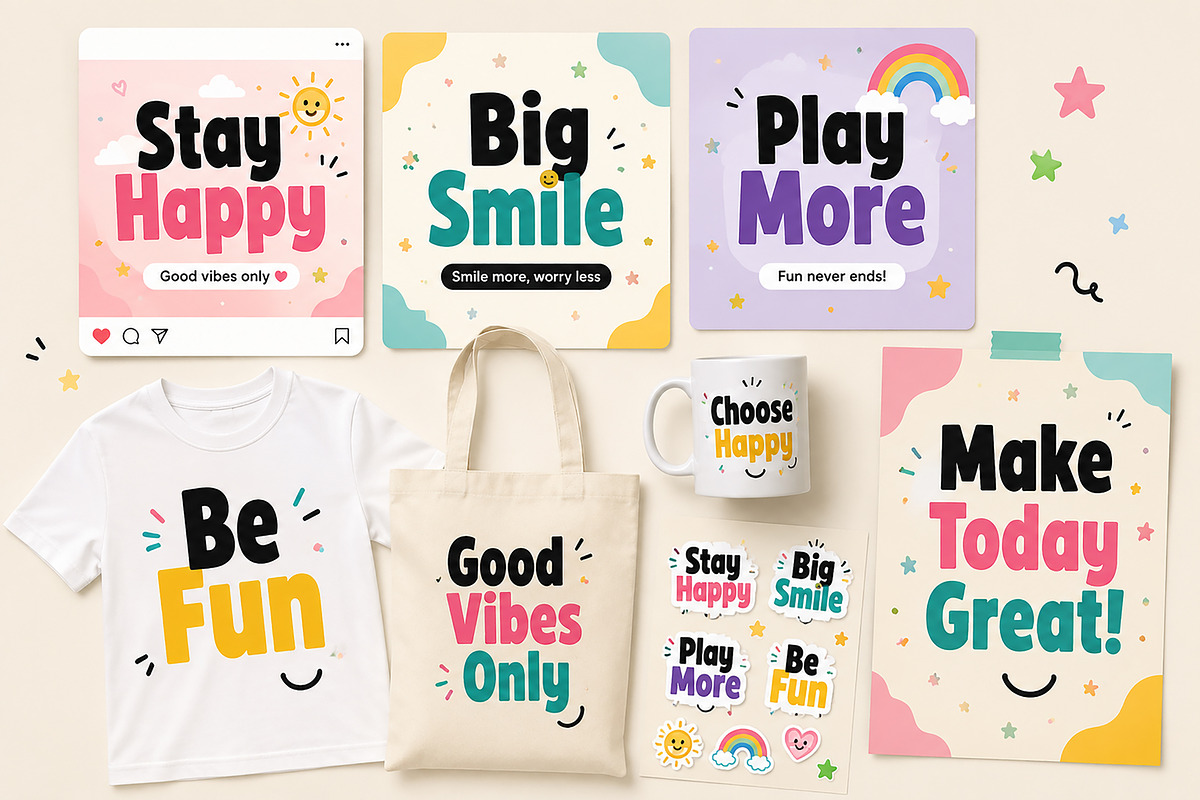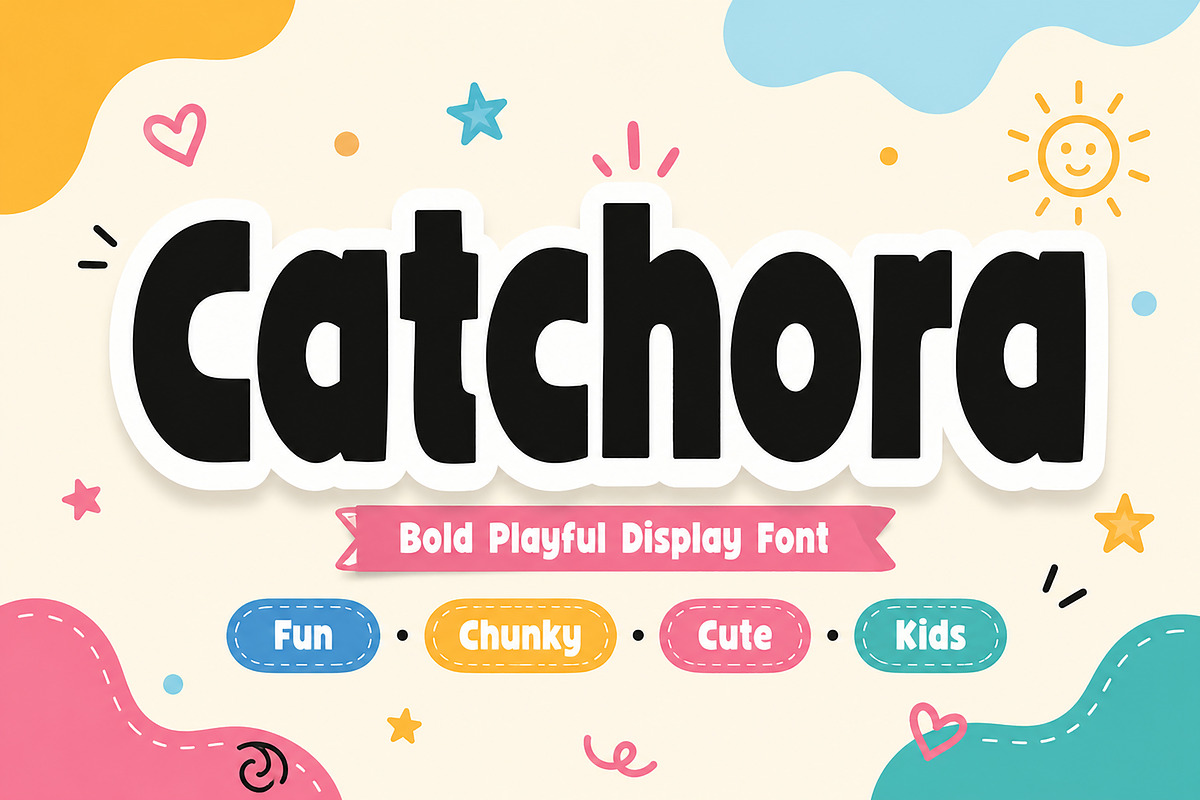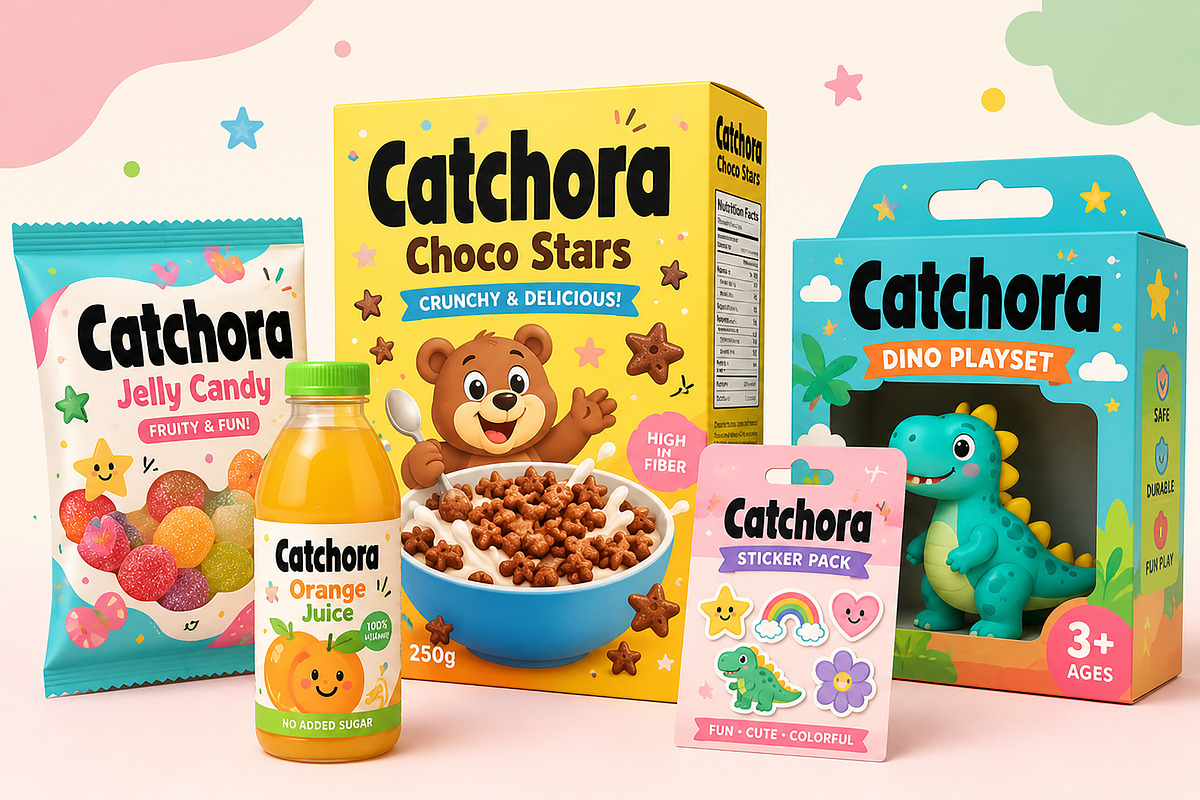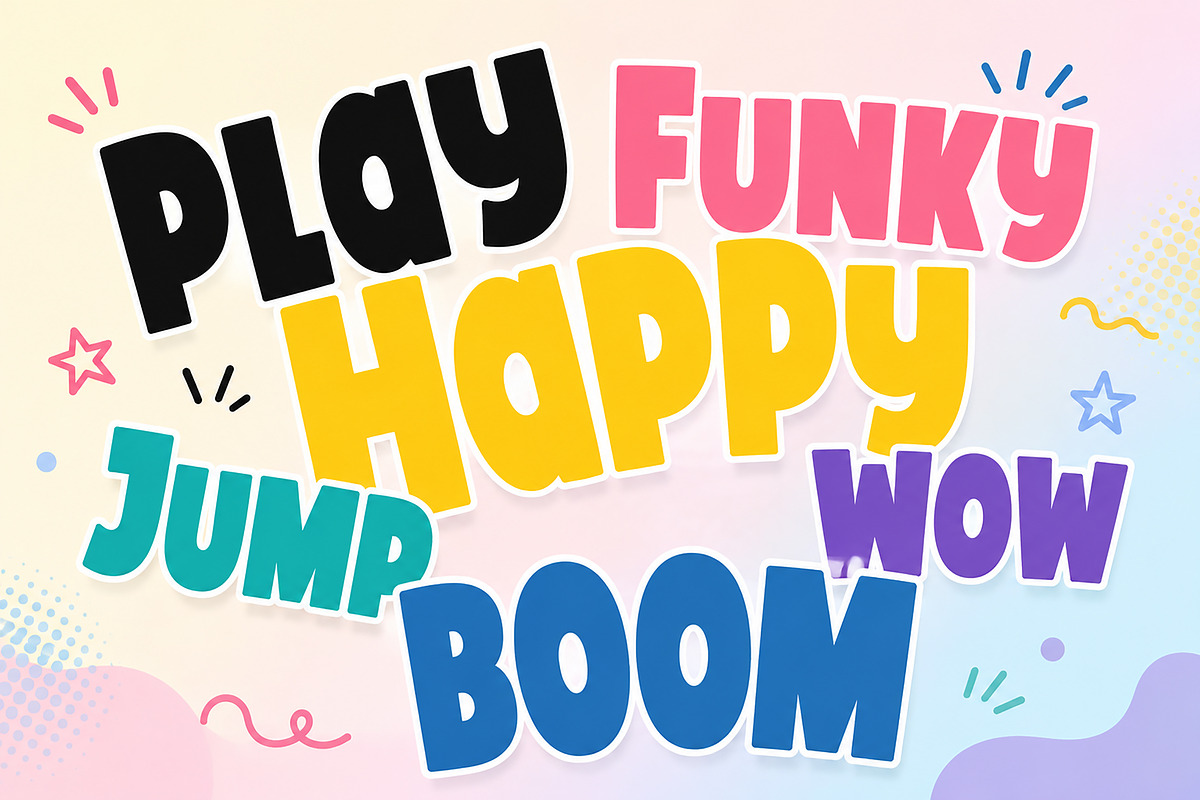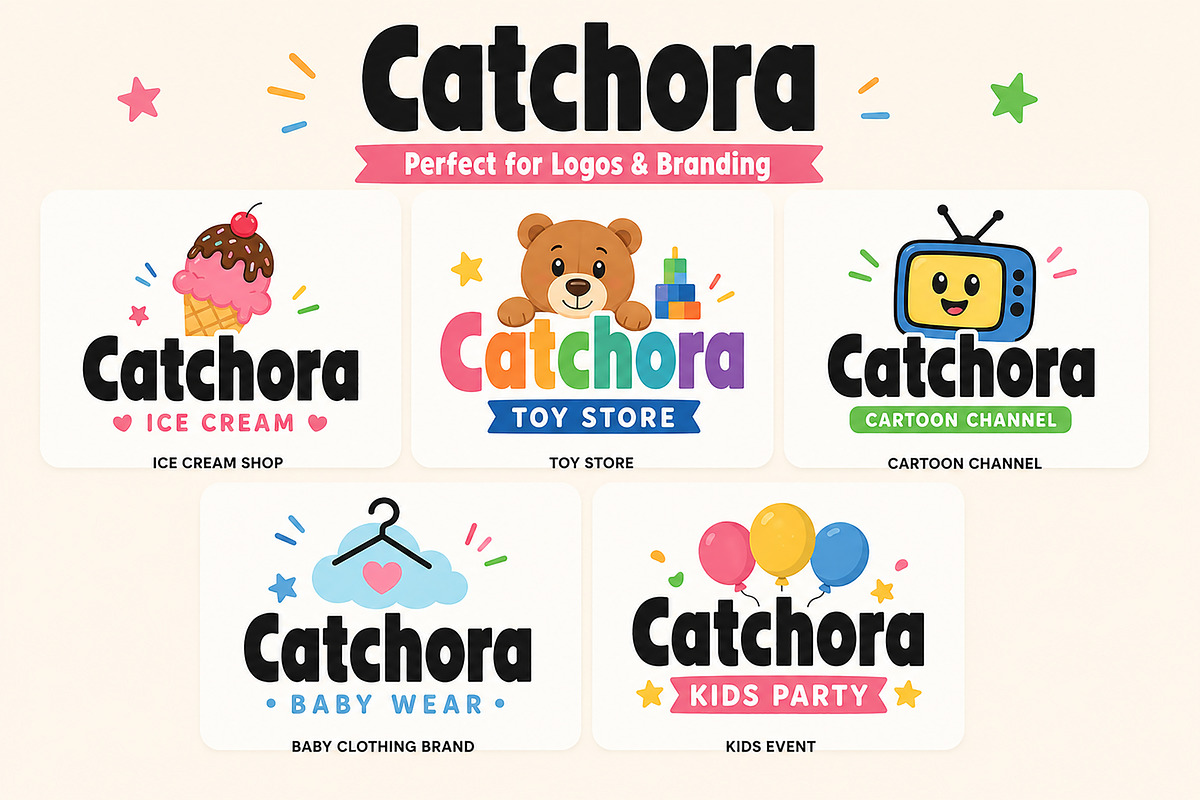
Catchora
Catchora is a bold, playful display font designed to bring joy, energy, and fun into your creative projects. With its chunky shapes, soft curves, and friendly character style, Catchora is perfect for kids branding, toy packaging, playful logos, candy labels, social media graphics, posters, and fun merchandise.
Its thick letterforms make it highly readable while keeping a cute and energetic personality, making it ideal for designs that need to feel cheerful, bold, and eye-catching.
Whether you're creating children’s products, colorful branding, birthday invitations, stickers, or fun apparel, Catchora adds a lively and happy touch to every design.
Kids branding
Toy packaging
Candy labels
Cartoon logos
Birthday invitations
Social media quotes
T-shirt designs
Stickers
Posters
YouTube thumbnails
Playful product packaging
Make your designs stand out with the fun and bold personality of Catchora.